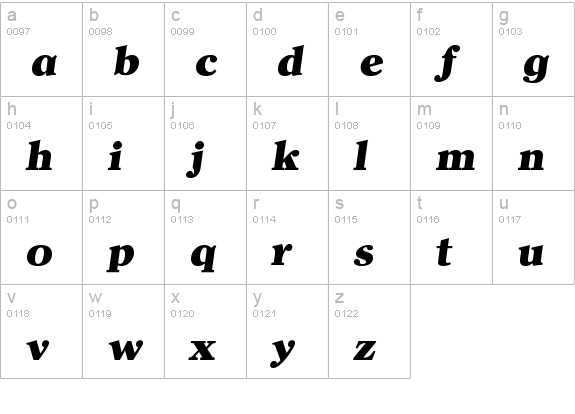
Clerface-HeavyIta Font Details
Clerface-HeavyIta is a bold and impactful font that exudes a sense of strength and sophistication. With its striking design and elegant curves, this font is perfect for making a statement in any creative project. Whether you are working on a poster, logo, or branding materials, Clerface-HeavyIta will elevate your design to the next level. What sets Clerface-HeavyIta apart is not just its visual appeal, but also the fact that it is completely free to download. Yes, you read that right - this stunning font is available for free at FontsMarket.com. So why wait? Give your projects that extra touch of style and professionalism with Clerface-HeavyIta today.